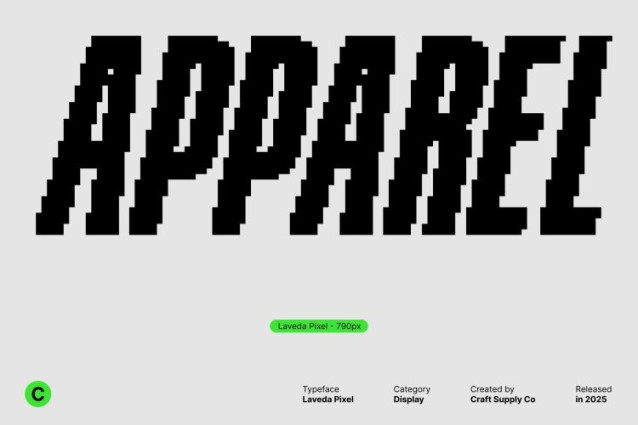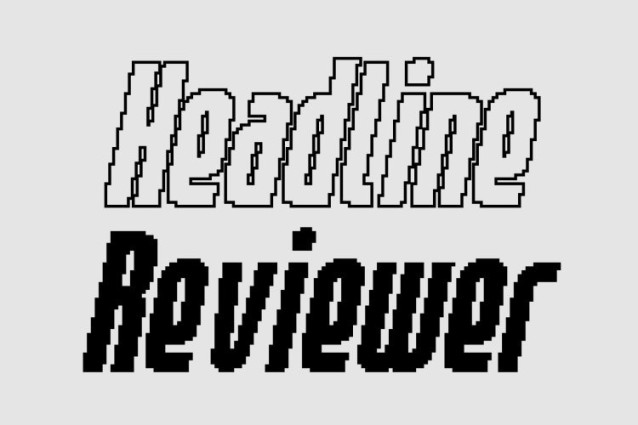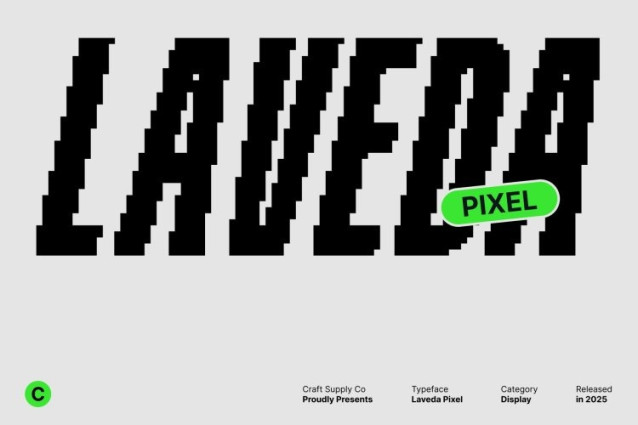
Laveda Pixel Font
Laveda Pixel Font Compact, bold, clean, and thoroughly modern, this condensed sans serif font is built to deliver powerful impact even in tight spaces. Its narrow structure allows designers to maximize layout efficiency while maintaining strong visual presence. Every character is shaped with sharp clarity, giving your designs a confident and contemporary look that stands out instantly.
Pixel Style for a Fresh, Modern Digital Edge
The added pixel style brings a unique digital twist, enhancing the font with a trendy, tech-inspired personality. This pixelated detail adds texture, structure, and visual rhythm—perfect for designs that embrace modern aesthetics, digital culture, and stylistic creativity. It injects an energetic, futuristic feel while keeping the typography clean and readable.
Perfect for Headlines, Posters, and Branding
Ideal for bold display typography, this font excels in headlines, posters, web layouts, branding systems, and impactful graphic compositions. Its condensed width ensures every word appears strong and attention-grabbing, making it a powerful tool for designers who want bold communication with style.
A Fusion of Readability, Boldness, and Digital Personality
Balancing clarity with striking presence, this typeface blends modern sans serif discipline with pixel-driven artistry. It’s perfect for fresh design concepts, modern web visuals, tech branding, and any project that needs a clean, bold, and digitally inspired aesthetic.